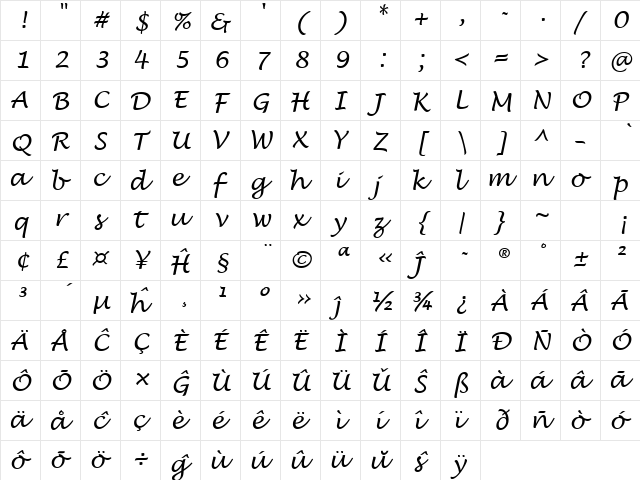
Lucida Handwriting Eo Italic Font Preview
Lucida Handwriting Eo Italic
Design Context for Lucida Handwriting Eo Typeface
Lucida Handwriting Eo flows with the natural rhythm of handwritten lettering, making it ideal for designs that call for warmth and personal expression.
Font Pairing: Combine Lucida Handwriting Eo with a simple geometric sans for maximum contrast — the tension between flowing curves and clean structure is a classic typographic pairing.
Pro Tip: Use Lucida Handwriting Eo for short runs of text — names, titles, or taglines. Extended body copy in script faces tires the eye quickly.